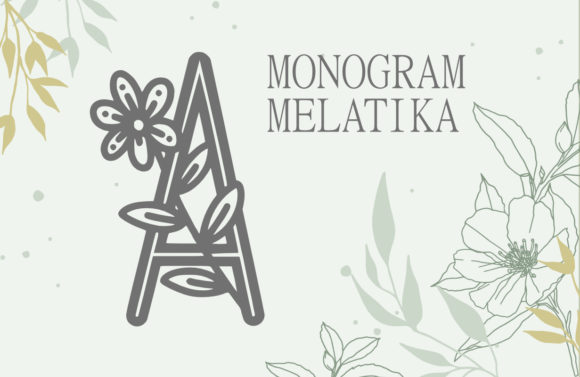
Unleash your creativity with Monogram Melatika Font, a captivating font family adorned with intricate floral ornaments. Step into a realm of elegance, where your designs blossom with charm and sophistication. This decorative font is a true gem, meticulously crafted to elevate your projects to new heights.
Imagine the possibilities: create stunning monograms for personalized gifts, add a touch of whimsy to your Cricut projects, or infuse your digital designs with a hint of grace. Monogram Melatika Font is your passport to a world of endless creative opportunities.
With its delicate strokes and elegant flourishes, Monogram Melatika Font transforms ordinary words into captivating works of art. Whether you're crafting heartfelt greeting cards, designing eye-catching presentations, or simply adding a touch of charm to your digital creations, this font is your secret weapon.
Embrace the beauty of Monogram Melatika Font and embark on a creative journey like no other. Let your imagination soar as you witness the transformation of your designs into masterpieces. Dive into a world of endless possibilities and elevate your projects to new heights.